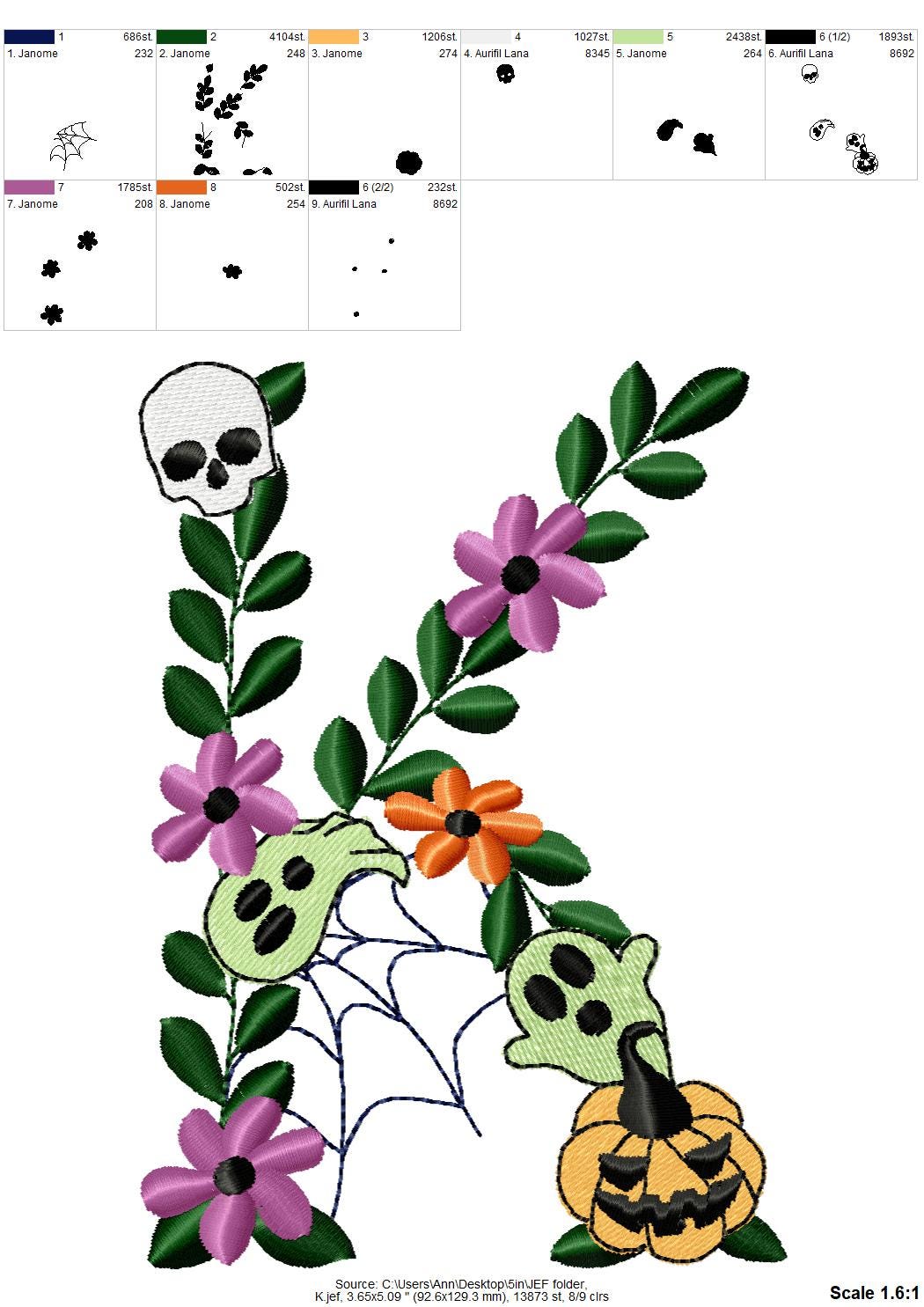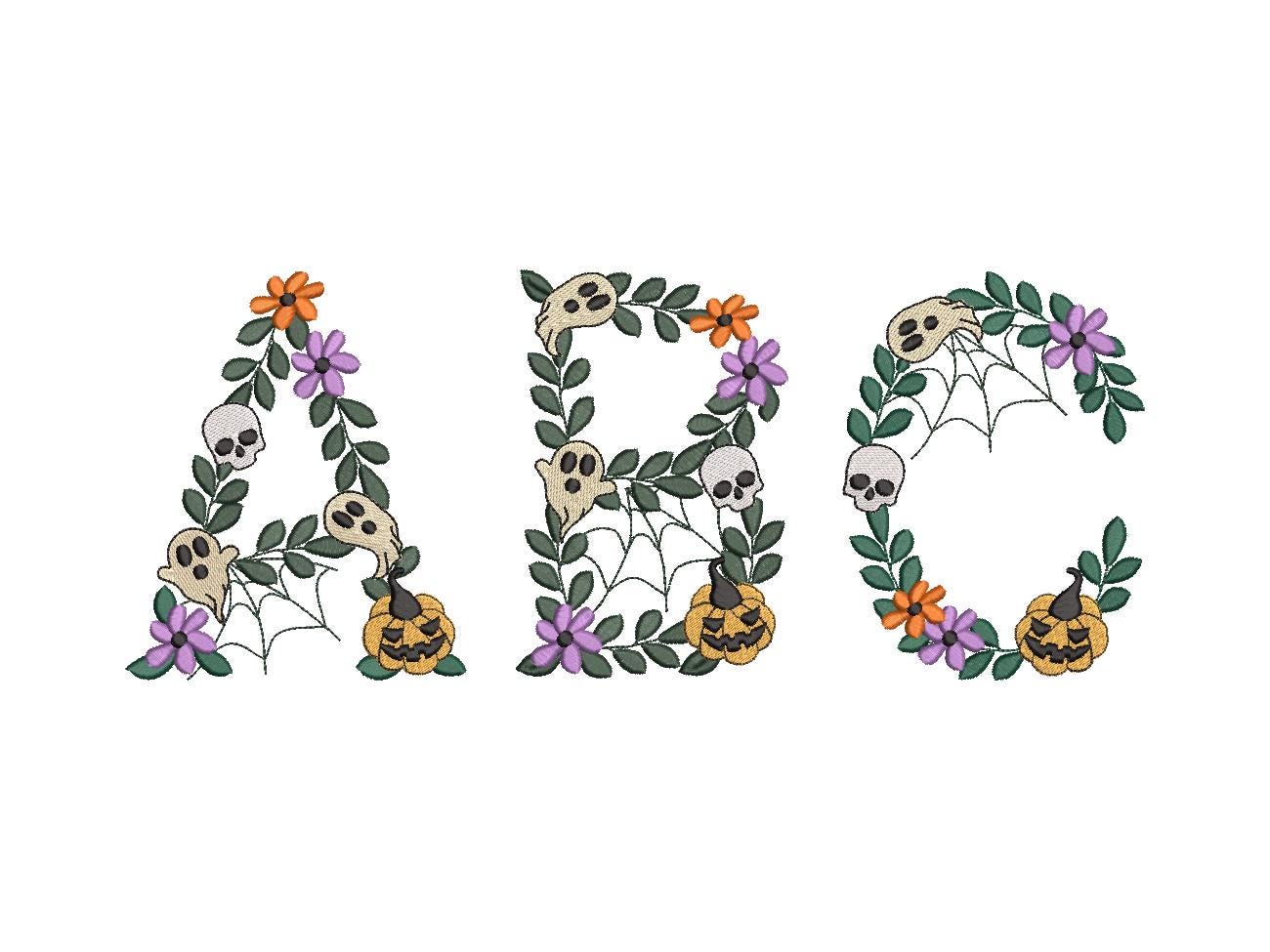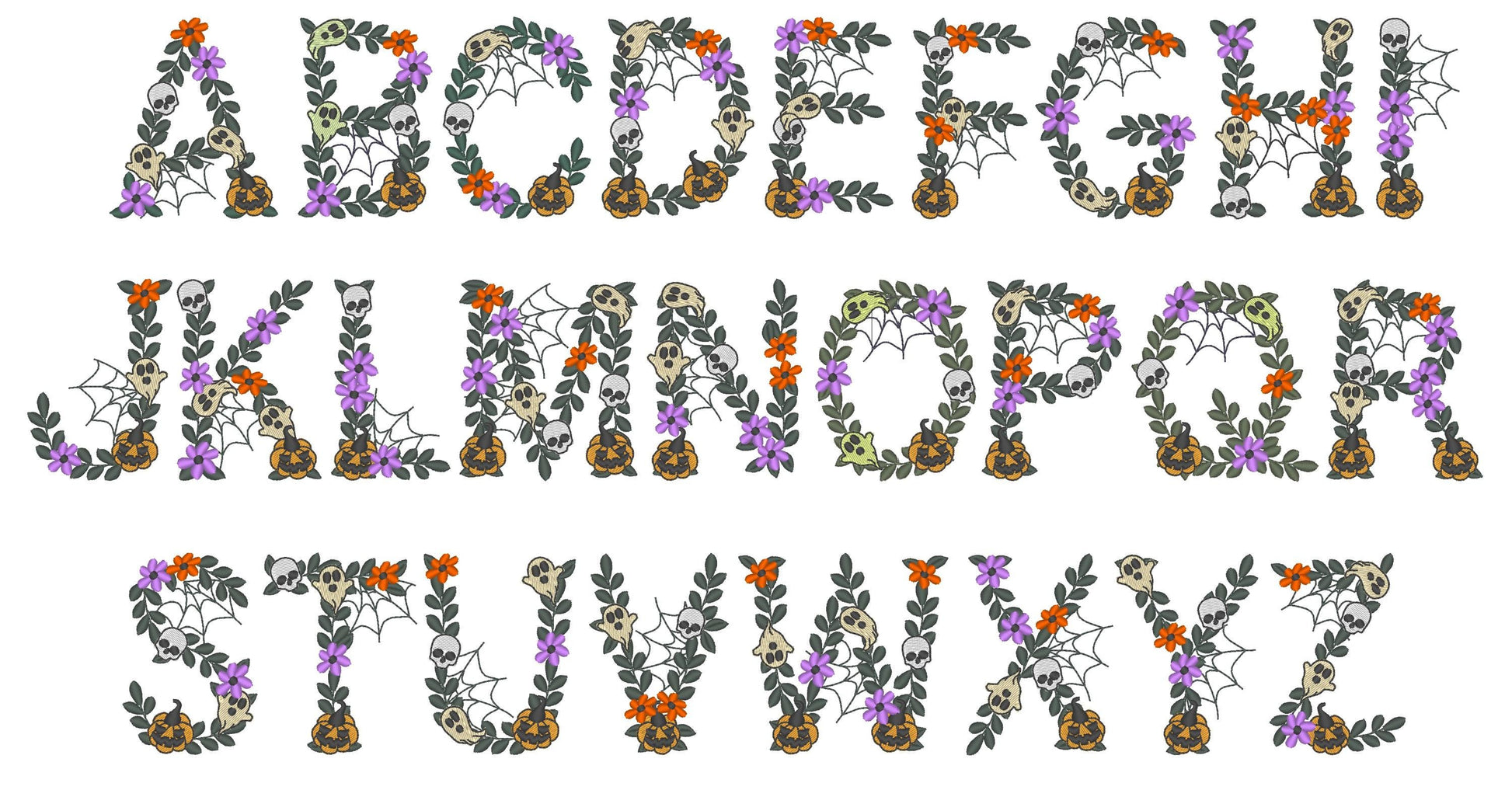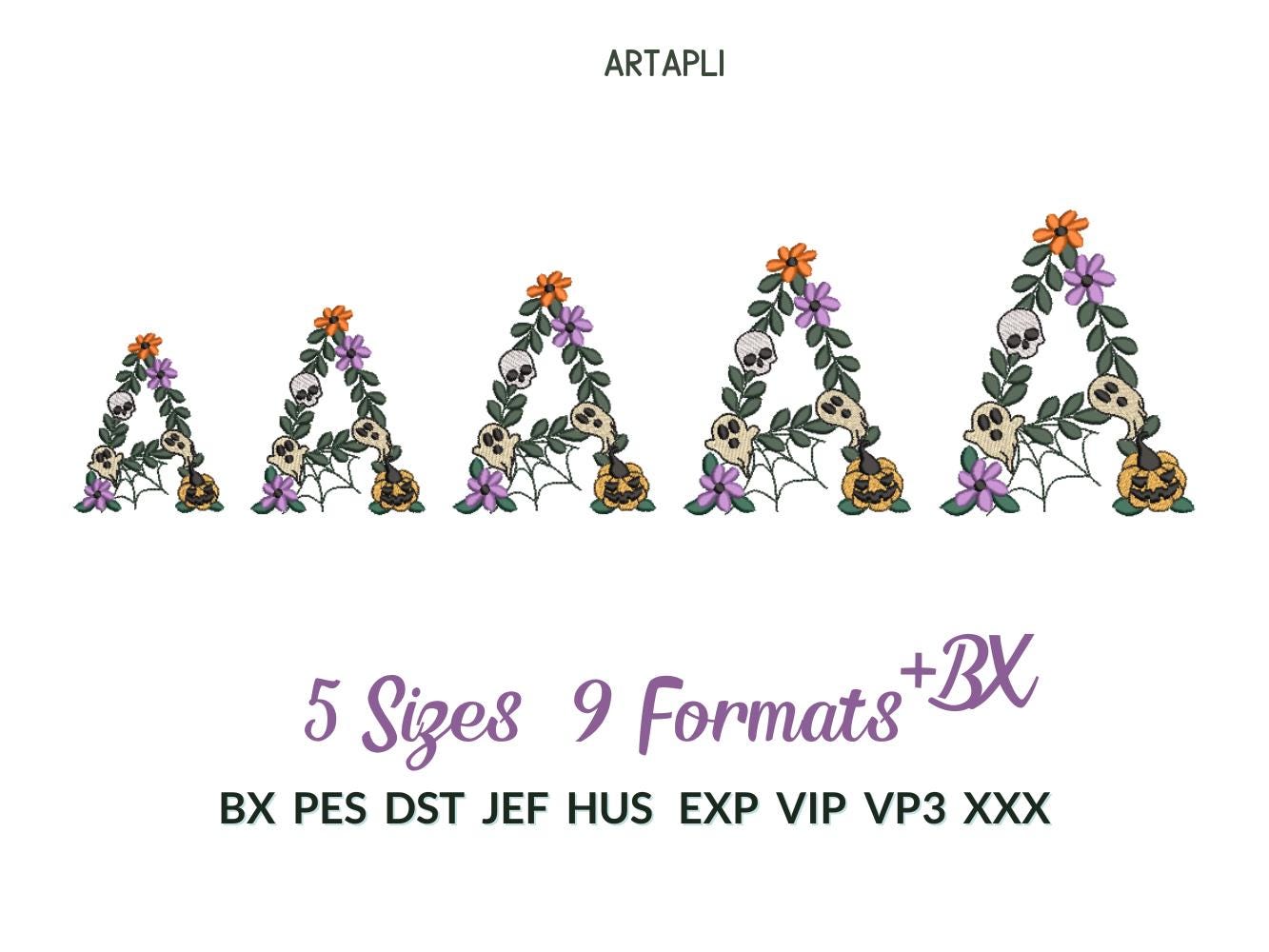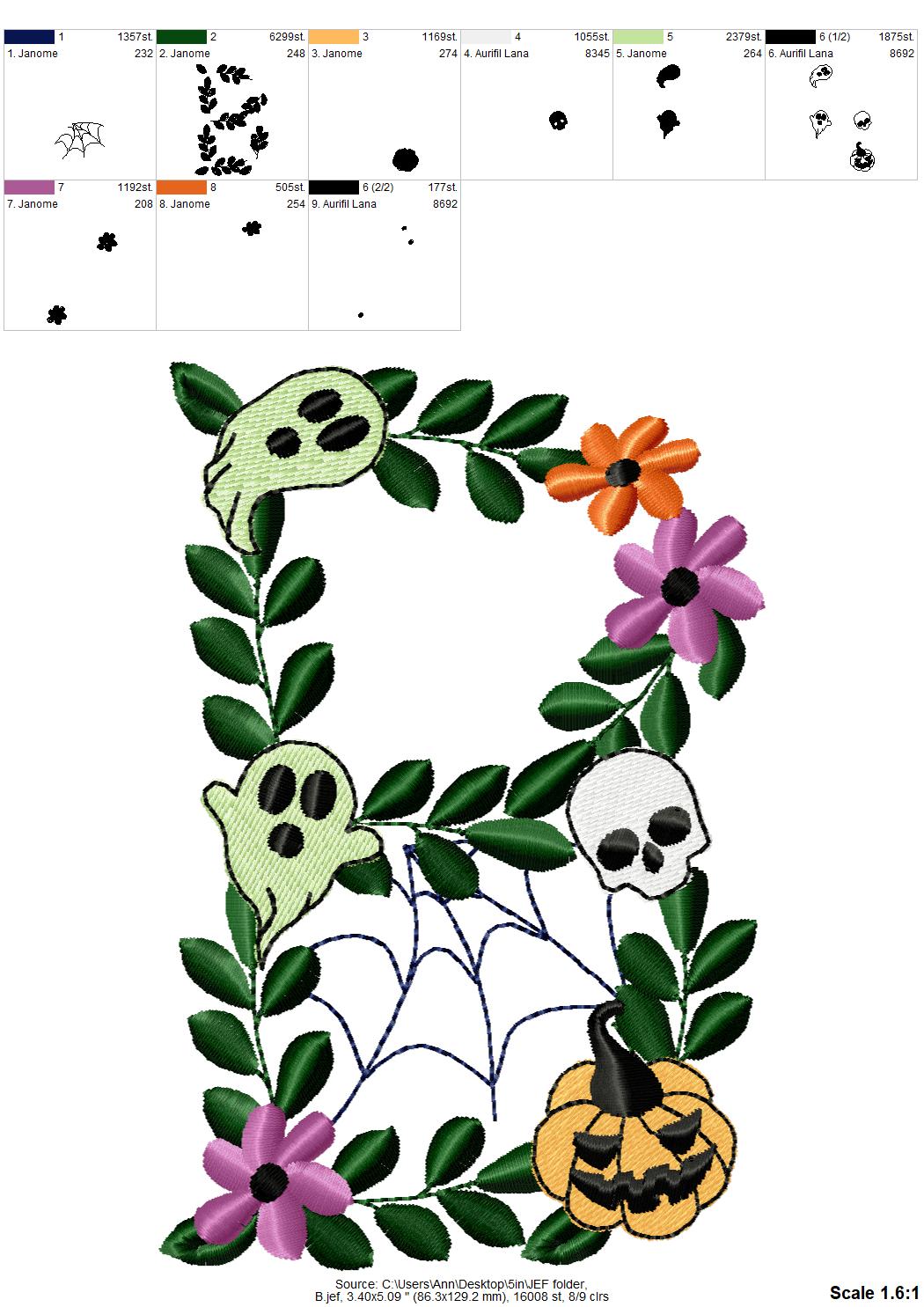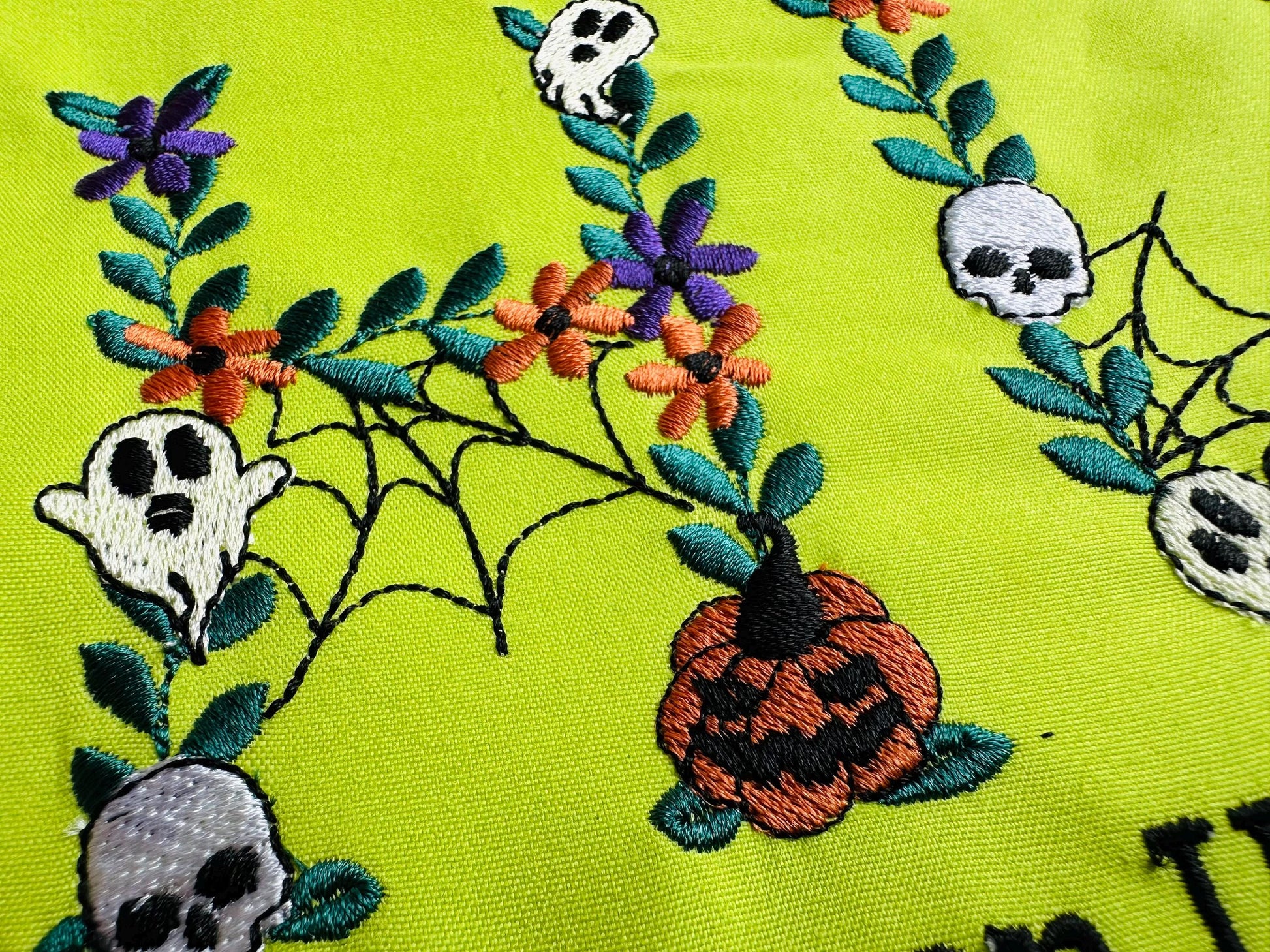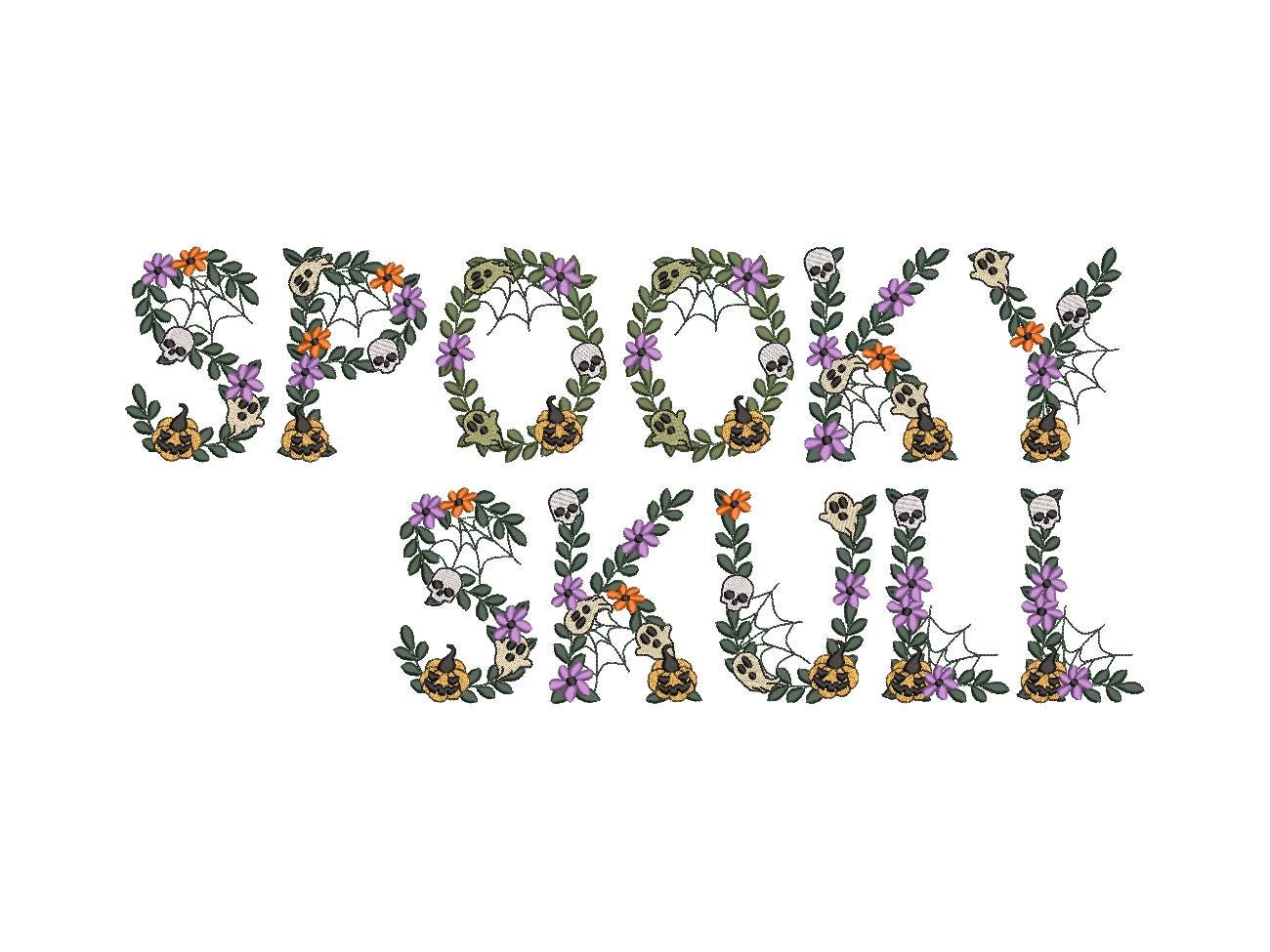
Or click to open the linkA spooky skull Halloween font with flowers, spider webs, ghosts and jack-o'-lanterns, for Halloween names and words on shirts, bags and pillows.
Uppercase A to Z in five sizes: 3.4, 4, 4.5, 5 and 5.7 inches.